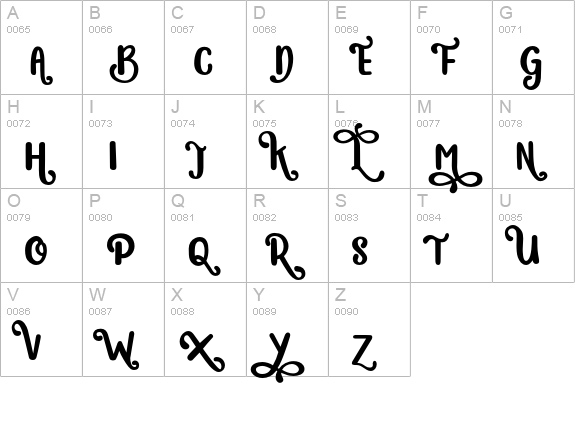
Mistaltoe Font Details
Mistaltoe is a demo font in the Script category, designed by HydricDesign. It has been downloaded 187 times and is available for Windows, Mac and Linux.
Mistaltoe font is a whimsical and elegant typeface that exudes charm and sophistication. Its delicate strokes and graceful curves make it perfect for adding a touch of magic to any design project. Whether you're creating invitations, greeting cards, or branding materials, Mistaltoe font will surely captivate your audience with its unique style.